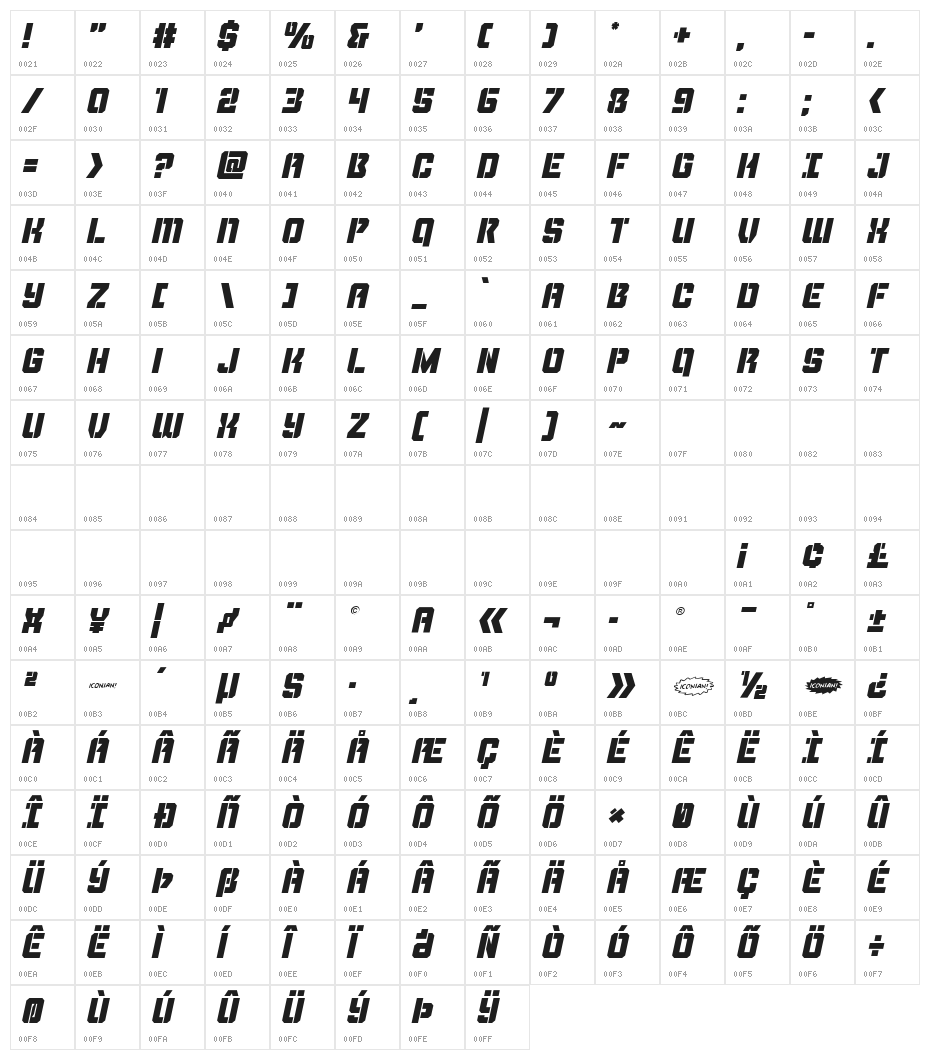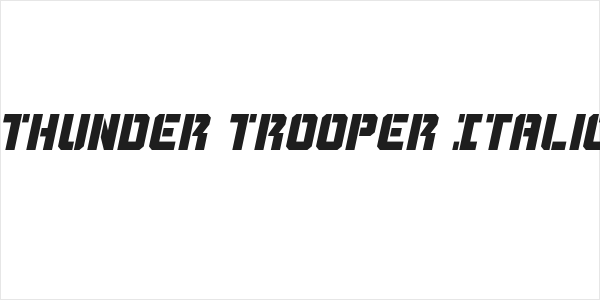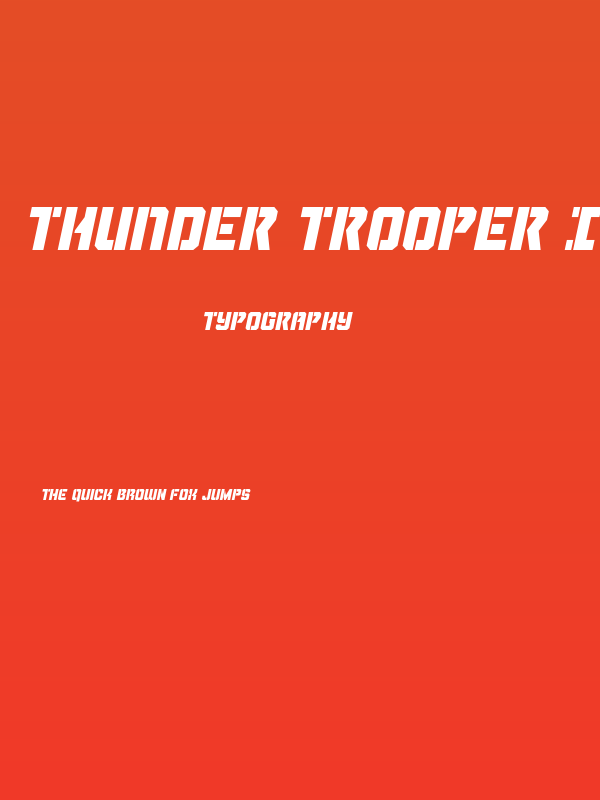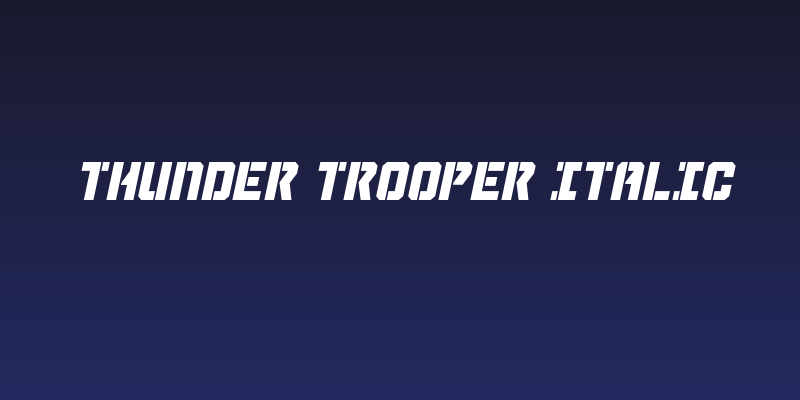
Thunder Trooper Italic Font
Thunder Trooper Italic Description
This font features a bold, italicized style with a futuristic and dynamic appearance. The characters are designed with sharp angles and a slanted orientation, giving a sense of movement and speed. The uppercase and lowercase letters maintain a consistent geometric form, while the numbers and special characters complement the overall aesthetic. The font's boldness and unique style make it stand out, suitable for projects that require a strong visual impact.
| Proposed Projects | Ideal for sci-fi themed posters, video game titles, sports branding, and dynamic logo designs. |